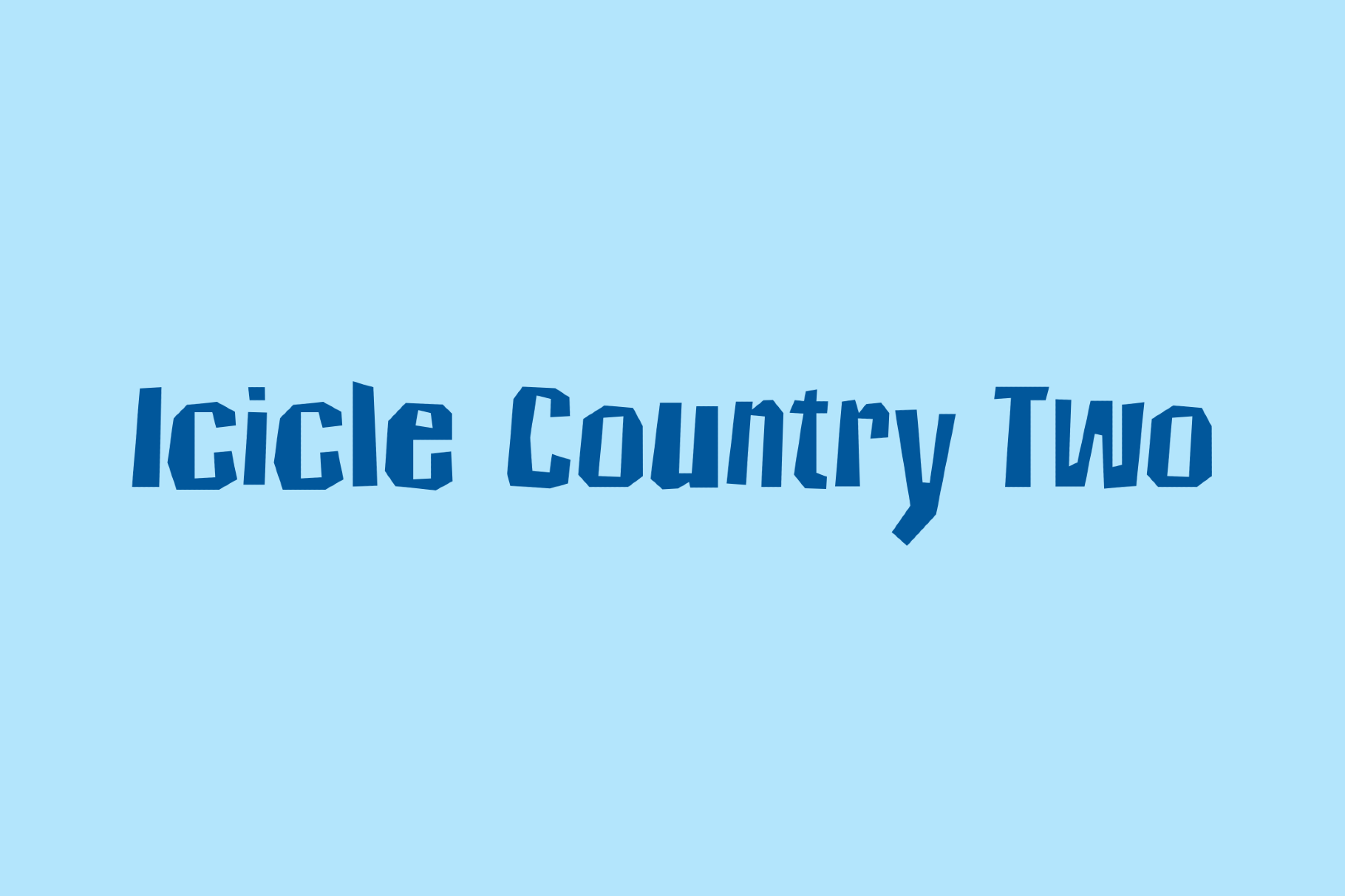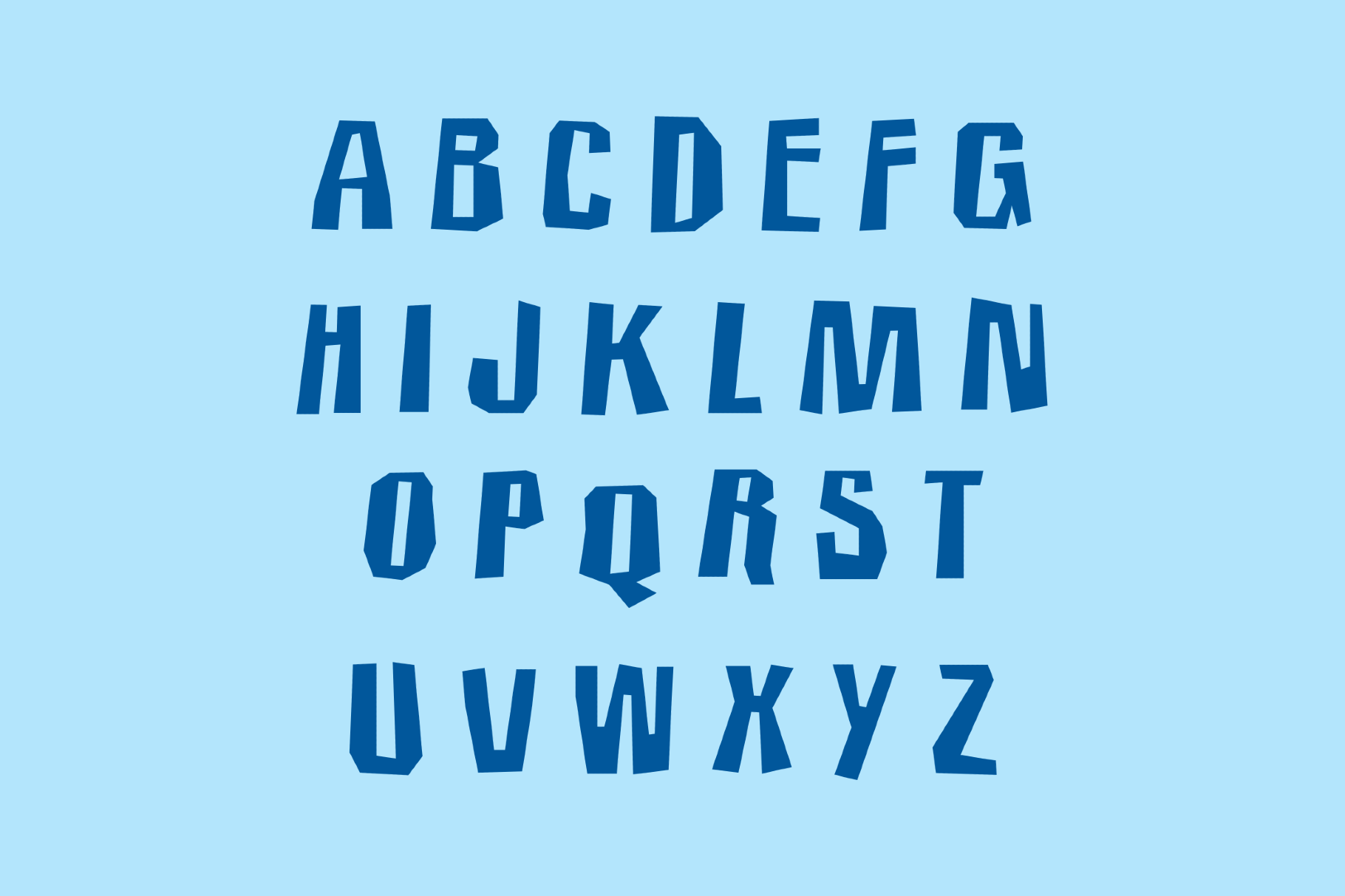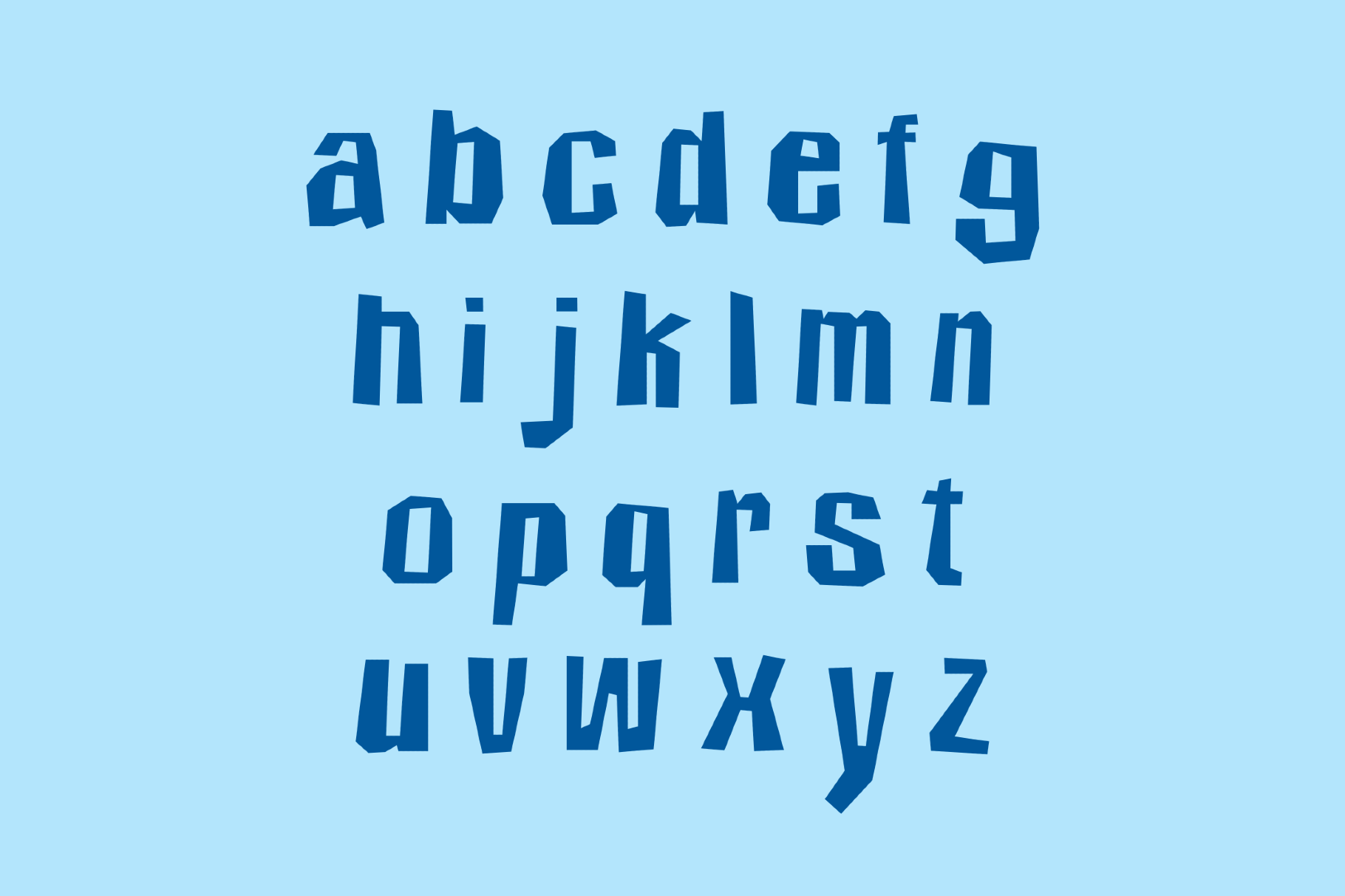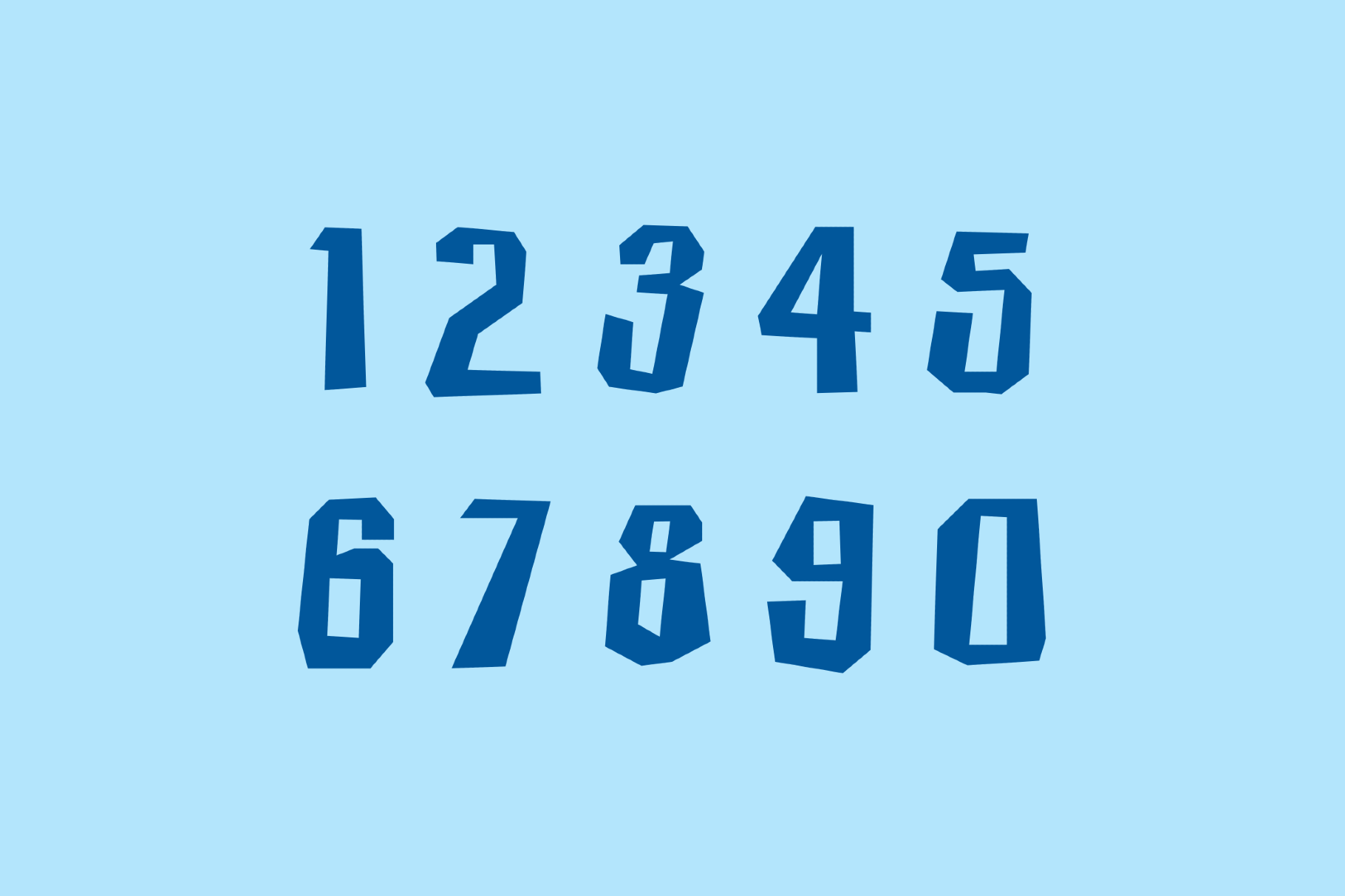
Icicle Country Two - Cartoon Font
Icicle Country 2
Icicle Country Two is a narrow, angular cartoon font with the crisp snap of cut-paper signage and winter carnival posters. Its faceted strokes recall alpine travel ephemera, sports graphics and hand-painted lettering made for cold-season spectacle. It is designed for poster headlines, holiday packaging, event branding, game titles, editorial covers, merch graphics, and seasonal social posts.